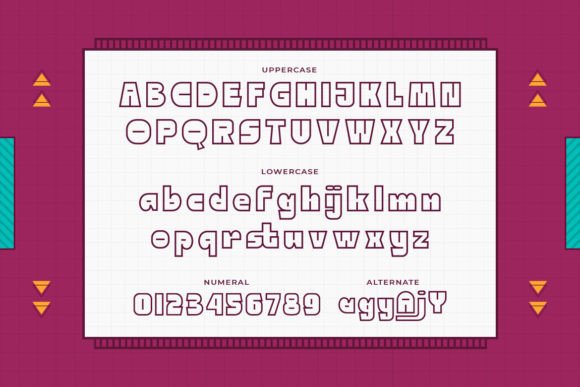
Introducing Gremlin Font: A Unique Outlined Display Font for Creative Projects
The world of typography is vast and diverse, offering a multitude of font styles to suit various design needs. Among these, outlined display fonts have gained popularity for their bold and eye-catching appearance. One such font that stands out in this category is the Gremlin Font. In this article, we’ll delve into the features, uses, and benefits of the Gremlin Font, exploring how it can elevate your creative projects.
What is Gremlin Font?
Gremlin Font is a unique outlined display font designed to make a statement. Its distinctive outline style gives it a bold and edgy look, making it perfect for projects that require a touch of personality. The font’s versatility allows it to be used in a wide range of applications, from digital designs to print materials.
Key Features of Gremlin Font
- Outlined Design: The Gremlin Font features a striking outlined design that sets it apart from other fonts.
- Display Font: Specifically designed as a display font, Gremlin Font is ideal for headlines, titles, and short texts.
- Unique Style: The font’s unique style makes it perfect for creative projects that require a distinctive touch.
- Versatile: Gremlin Font can be used in various contexts, from digital designs to print materials.
Uses of Gremlin Font
Gremlin Font’s versatility makes it suitable for a wide range of applications. Here are some of the ways you can use this font:
- Quotes and Descriptions: Use Gremlin Font to add a touch of personality to quotes and descriptions.
- Mugs and Merchandise: The font’s bold design makes it perfect for mugs, t-shirts, and other merchandise.
- Invitations and Letterheads: Gremlin Font can add a unique touch to invitations, letterheads, and other stationery.
- Signage and Labels: The font’s bold design makes it ideal for signage, labels, and other attention-grabbing applications.
- News and Posters: Gremlin Font can be used to create eye-catching news headlines and posters.
- Badges and Logos: The font’s unique style makes it perfect for badges, logos, and other graphical elements.
Benefits of Using Gremlin Font
Gremlin Font offers several benefits that make it a popular choice among designers. Here are some of the advantages of using this font:
- Attention-Grabbing: The font’s bold and outlined design makes it perfect for grabbing attention.
- Versatile: Gremlin Font can be used in various contexts, making it a great addition to any designer’s toolkit.
- Unique Style: The font’s distinctive style sets it apart from other fonts, making it perfect for creative projects.
- Easy to Read: Despite its bold design, Gremlin Font is easy to read, making it suitable for both digital and print materials.
How to Use Gremlin Font Effectively
To get the most out of Gremlin Font, here are some tips for using it effectively:
- Use it Sparingly: Gremlin Font’s bold design makes it perfect for headlines and titles. Use it sparingly to avoid overwhelming the reader.
- Pair it with Other Fonts: Gremlin Font can be paired with other fonts to create a unique and visually appealing design.
- Adjust Font Size: Experiment with different font sizes to find the perfect balance for your design.
- Play with Colors: Gremlin Font can be used in various colors to add an extra layer of creativity to your design.
| Font Name | Gremlin Font |
| Author | TypeFactory |
Gremlin Font is a unique outlined display font that offers a bold and eye-catching design. Its versatility makes it suitable for a wide range of applications, from digital designs to print materials. With its attention-grabbing design, unique style, and ease of use, Gremlin Font is a great addition to any designer’s toolkit. Whether you’re creating quotes, descriptions, mugs, invitations, or signage, Gremlin Font is sure to make a statement.